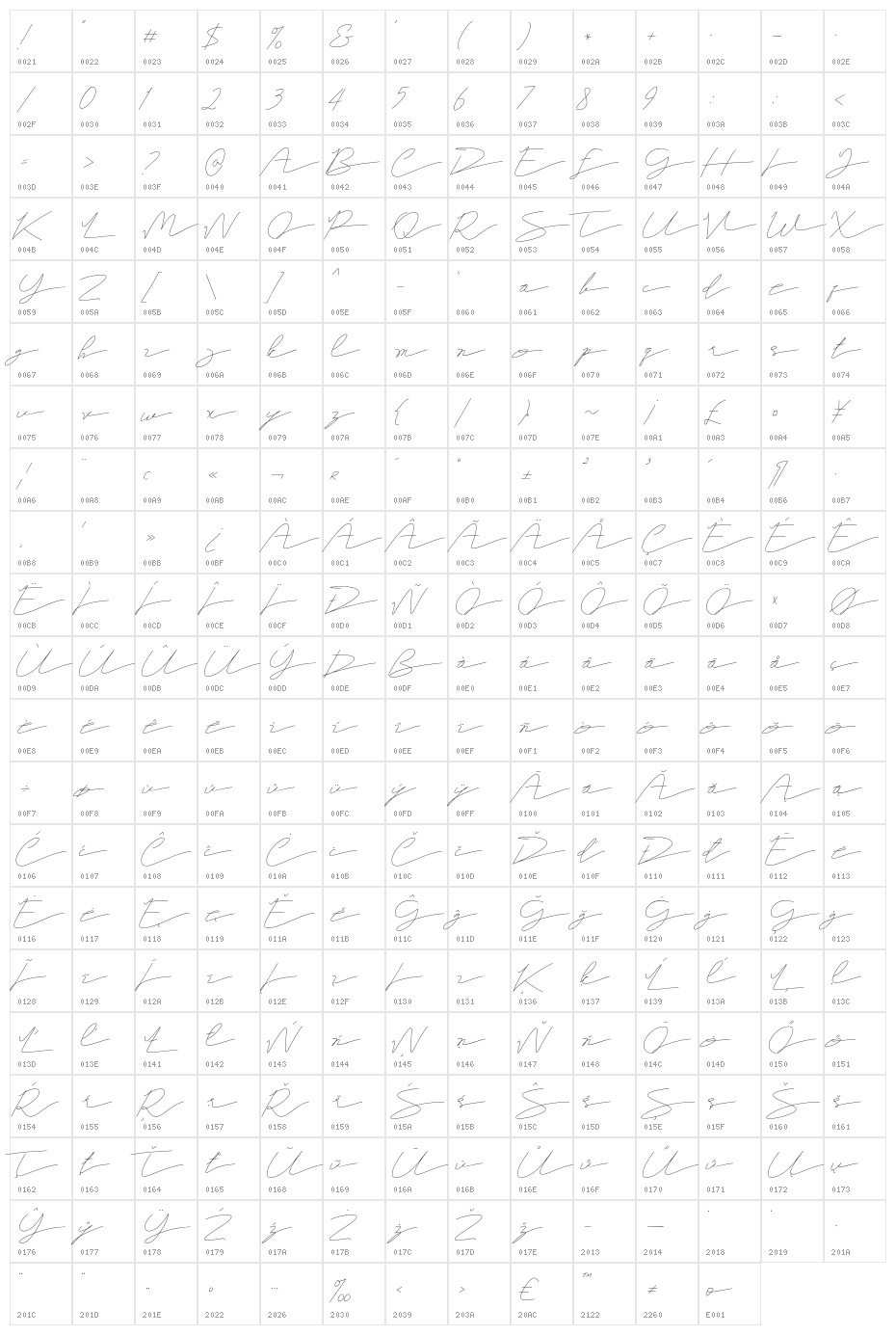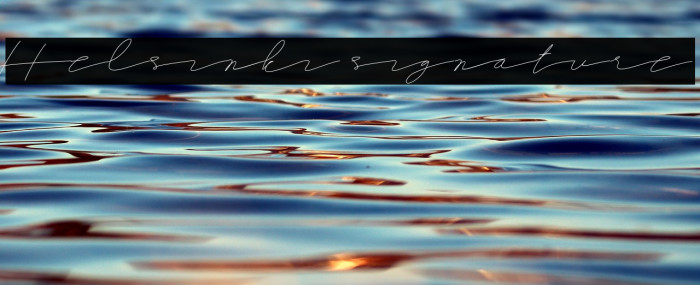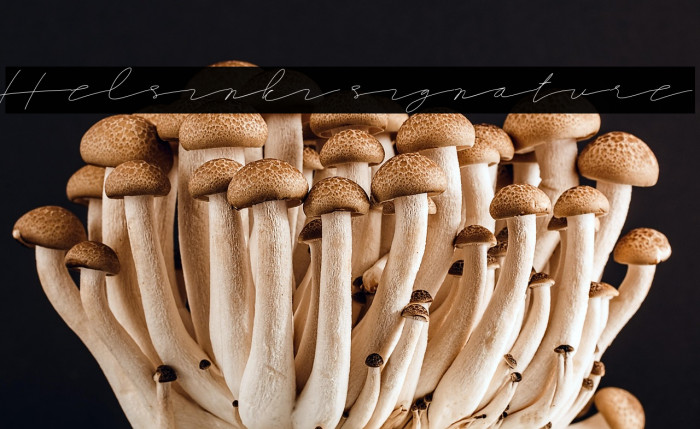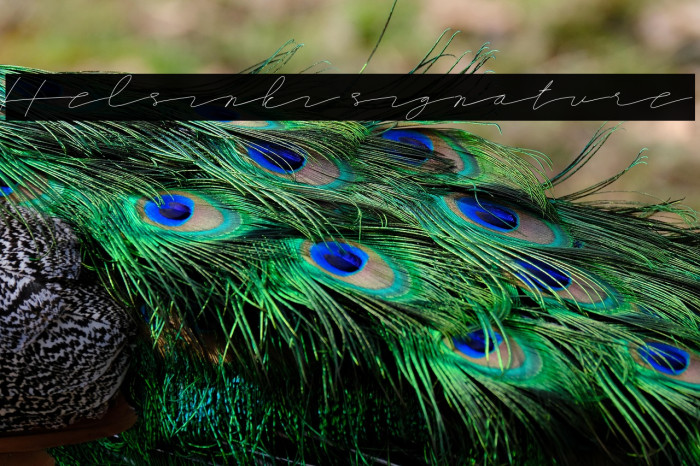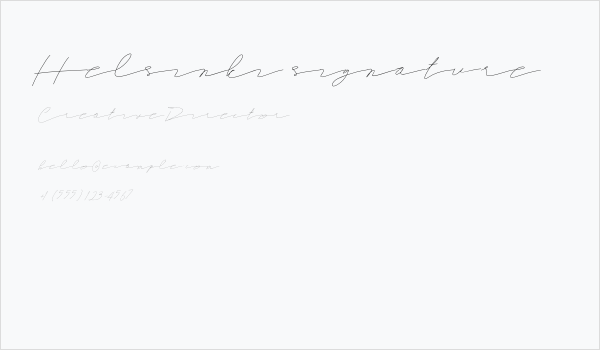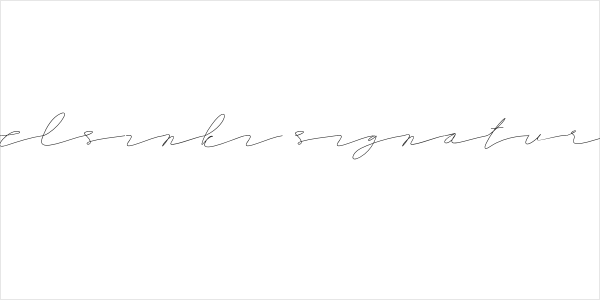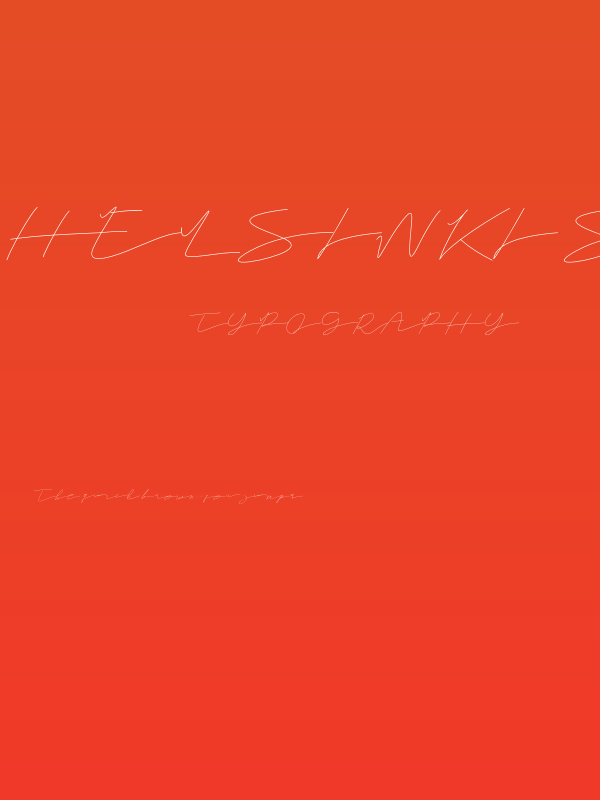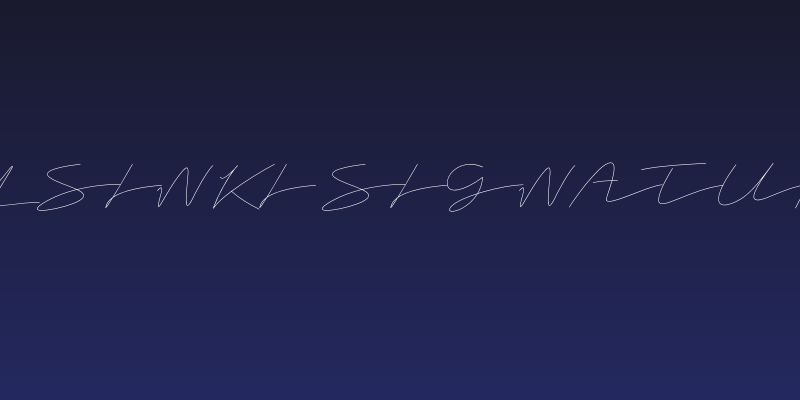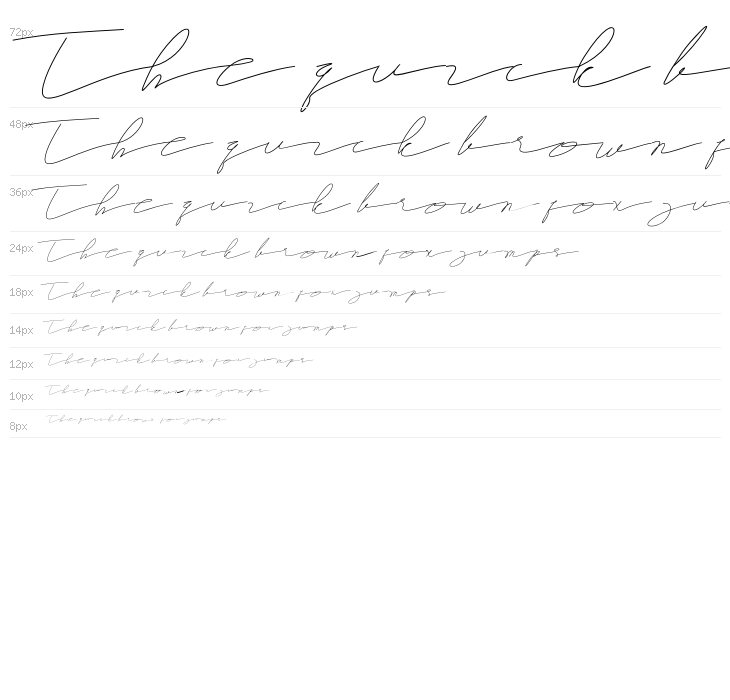
Helsinki signature Font
Helsinki signature Description
This font exudes a delicate and elegant handwritten style, characterized by its fluid and continuous strokes. Each letter seamlessly connects to the next, creating a harmonious flow that mimics natural handwriting. The thin lines and slight slant give it a sophisticated and personal touch, making it ideal for conveying a sense of intimacy and elegance. The numerals and special characters maintain the same graceful style, ensuring consistency across all text elements. This font is perfect for projects that require a personal, yet refined aesthetic.
| Overall Style | Elegant, Personal |
| Use Case | Invitations, Personal notes, Branding |
| Proposed Projects | Ideal for wedding invitations, personal letters, branding, and elegant stationery. |